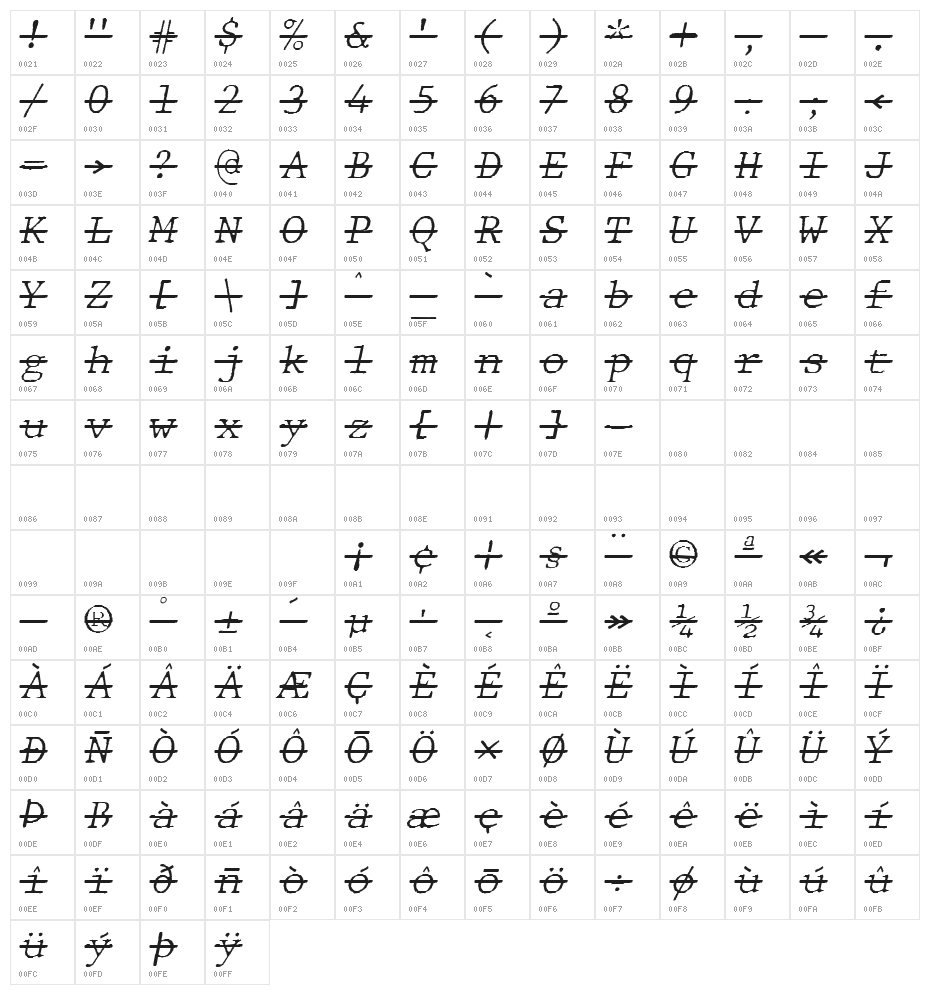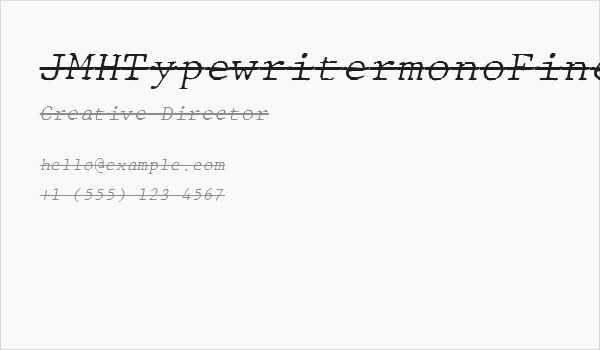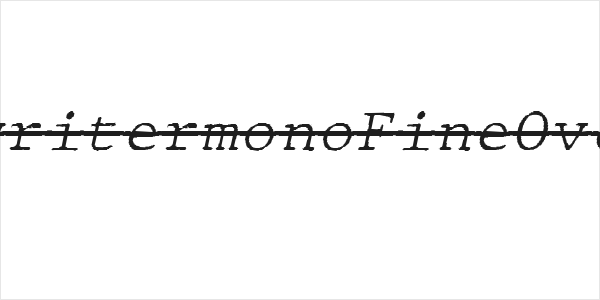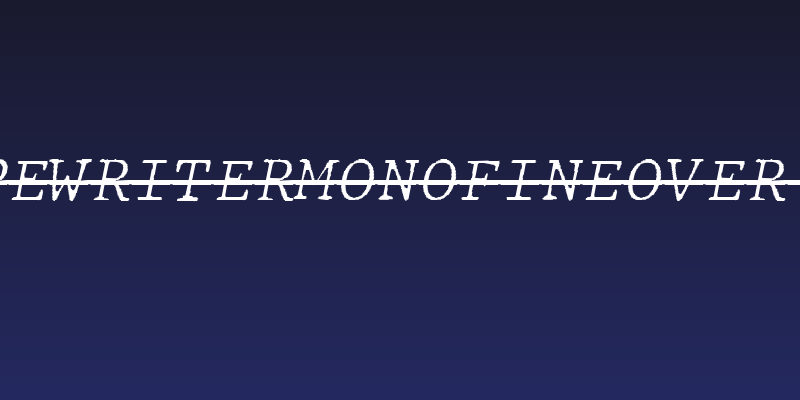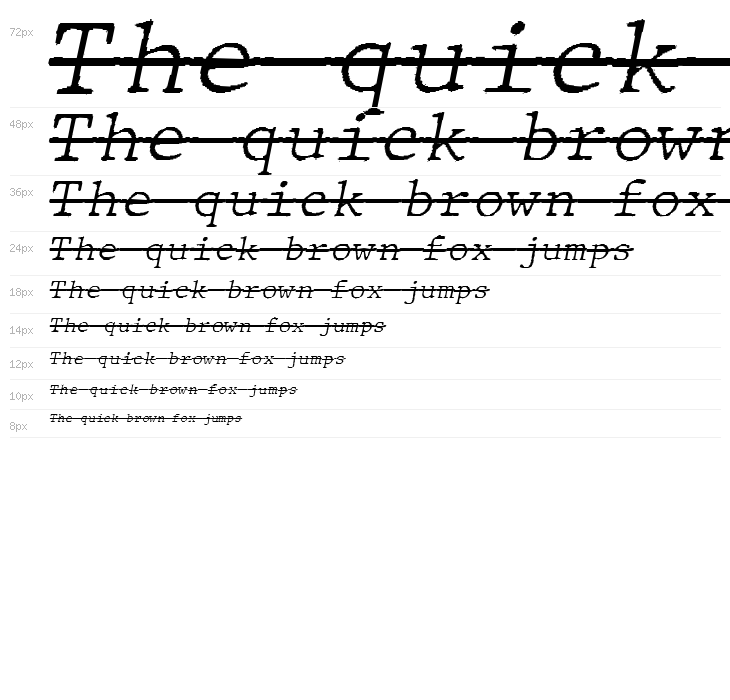
JMHTypewritermonoFineOver-Itali Font
JMHTypewritermonoFineOver-Itali Description
This font features a monospaced design with a typewriter aesthetic, characterized by its uniform spacing and mechanical appearance. Each character is distinct and clear, with a slight slant that adds a dynamic feel. The strokes are consistent in width, giving it a clean and precise look. The inclusion of a strikethrough line across all characters adds a unique, unconventional twist, making it stand out. This font is ideal for projects that require a retro or vintage typewriter feel, while the strikethrough element introduces a modern, edgy flair.
| Overall Style | Vintage, Modern |
| Use Case | Logos, Artistic projects, Posters |
| Proposed Projects | Ideal for creative projects such as retro-themed designs, artistic posters, or digital art that requires a vintage typewriter look with a modern twist. |